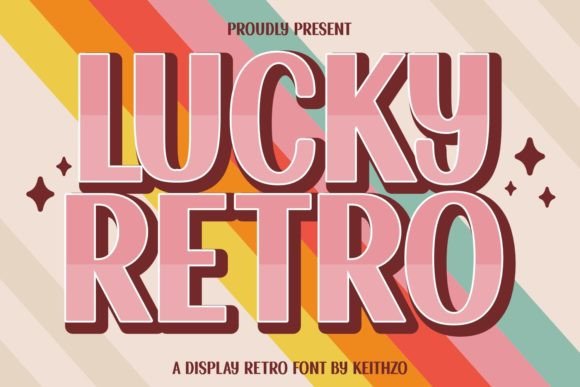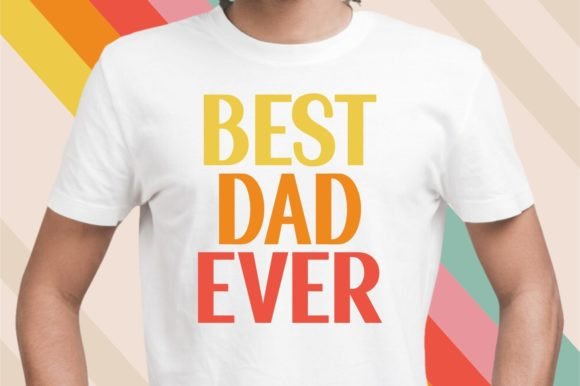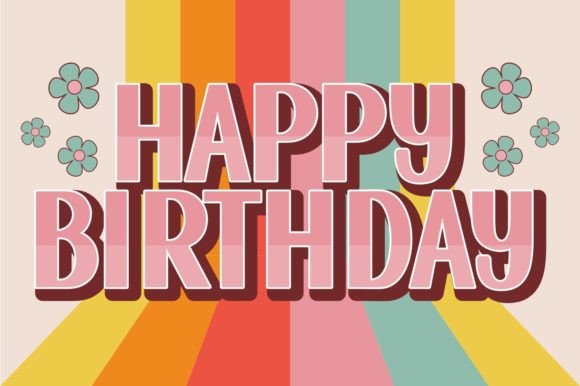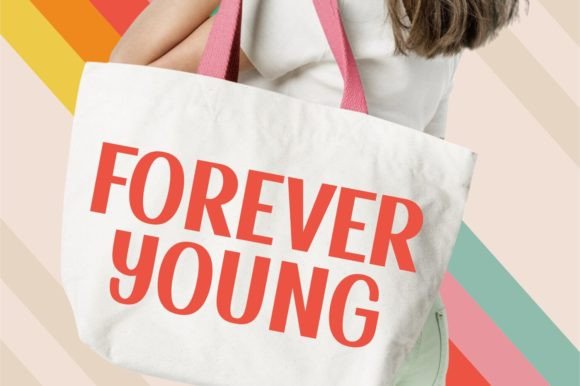
Lucky Retro Font
About the Lucky Retro Font
Elevate your designs with Lucky Retro Font, a font that combines sophistication with readability. Lucky Retro font is a vibrant display typeface reminiscent of vintage signage and retro aesthetics. With bold, rounded letterforms and playful curves, it evokes a sense of nostalgia while adding a modern twist. Ideal for eye-catching headlines, posters, and branding, Lucky Retro radiates energy and charm with every glyph.
Its bold, rounded forms make it perfect for headlines, posters, and short, impactful branding statements. Avoid using Lucky Retro for body text or lengthy paragraphs; its playful nature can become overwhelming in large blocks of text. It also isn’t suitable for user interfaces requiring high legibility.
This font’s energetic and optimistic personality is ideal for brands targeting a young, vibrant audience. Consider projects related to entertainment, food, and lifestyle products. Think retro-themed cafes, vintage clothing lines, or fun, playful apps.
Pair Lucky Retro with a clean sans-serif like Open Sans for a balanced contrast, or a more geometric sans-serif for a modern feel. For a touch of elegance, consider pairing it with a subtle serif font like Lato. Avoid pairing it with other overly decorative fonts, as this would create visual clutter.
Lucky Retro Font Usage Examples
Lucky Retro Font Example